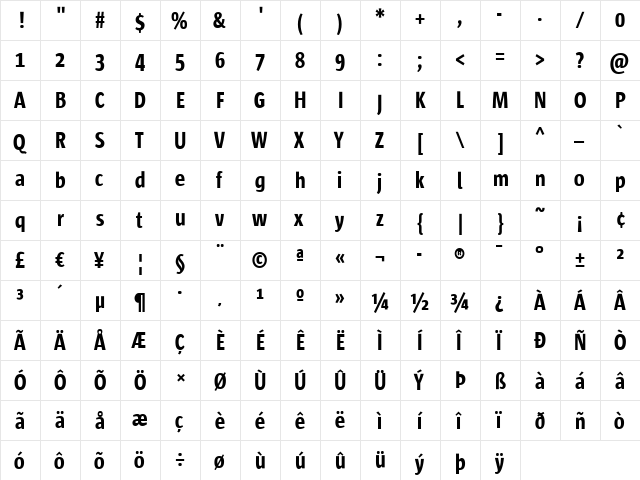
Sun Sans Condensed- SunSansCondensed Demi
| Foundry | Luc[as] de Groot Exclusive for Sun Microsystems, version |
Design Context for Sun Sans Condensed- Typeface
Sun Sans Condensed- offers clean, dependable letterforms without strong stylistic allegiance, making it a practical choice for designers who need flexibility. The condensed width makes it efficient for tight spaces without sacrificing legibility.